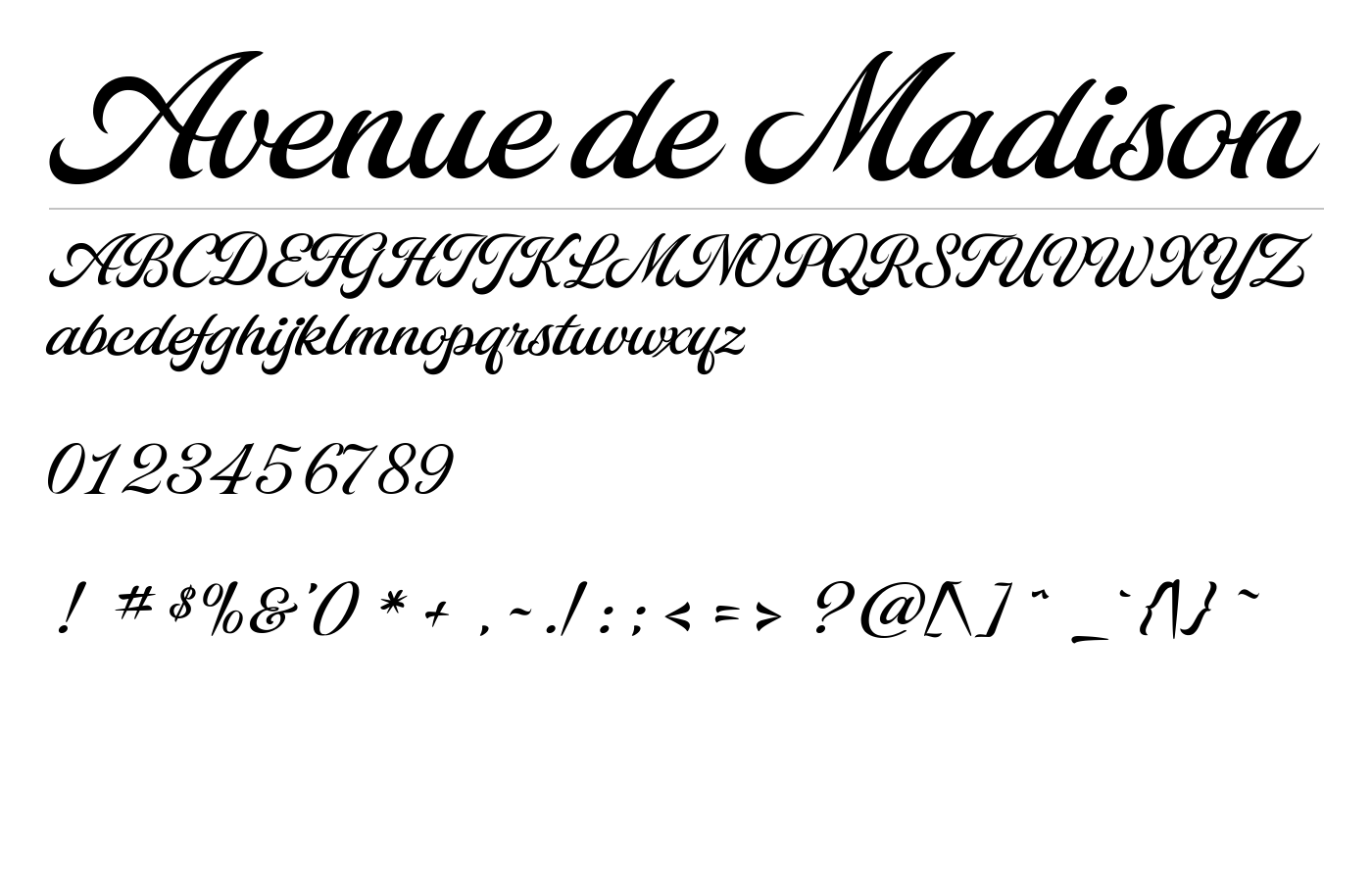
Avenue de Madison is an elegant script font that exudes sophistication with its smooth, flowing strokes and moderate contrast between thick and thin lines. Its refined, cursive style features classic letterforms with graceful curves, making it perfect for luxury branding, invitations, and upscale editorial designs. This font adds a timeless, stylish touch to any project needing a sense of refinement and charm.
Avenue de Madison Font
About Avenue de Madison Font
| Font family | Avenue de Madison Font |
| Designer | CAT.B |